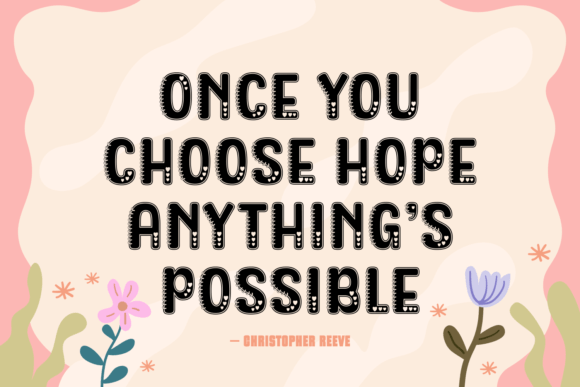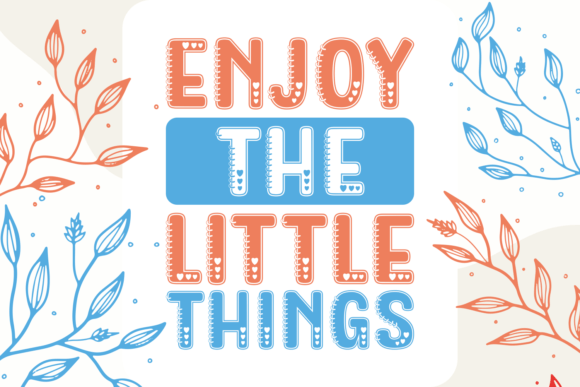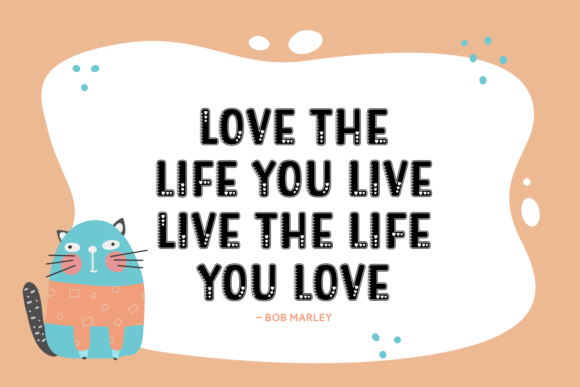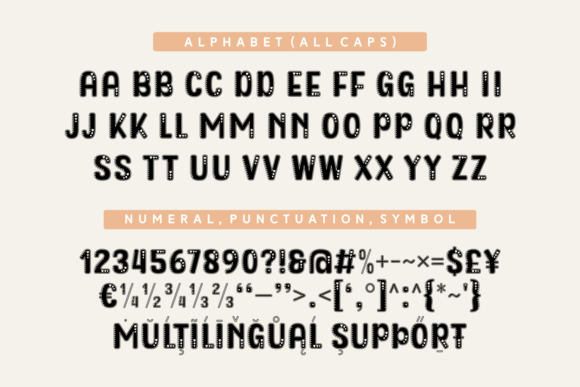
Introduction to Diary Sovia Font
This eye-catching decorative font is perfect for any design project.
With its intricate lines and bold characters, Diary Sovia font adds a touch of elegance and style to any project .
Key Features of Diary Sovia Font
Why Choose Diary Sovia Font?
Diary Sovia Font offers exceptional quality and versatility, making it a valuable addition to your design toolkit. Whether you’re creating for personal projects or commercial use, Diary Sovia Font delivers professional results.